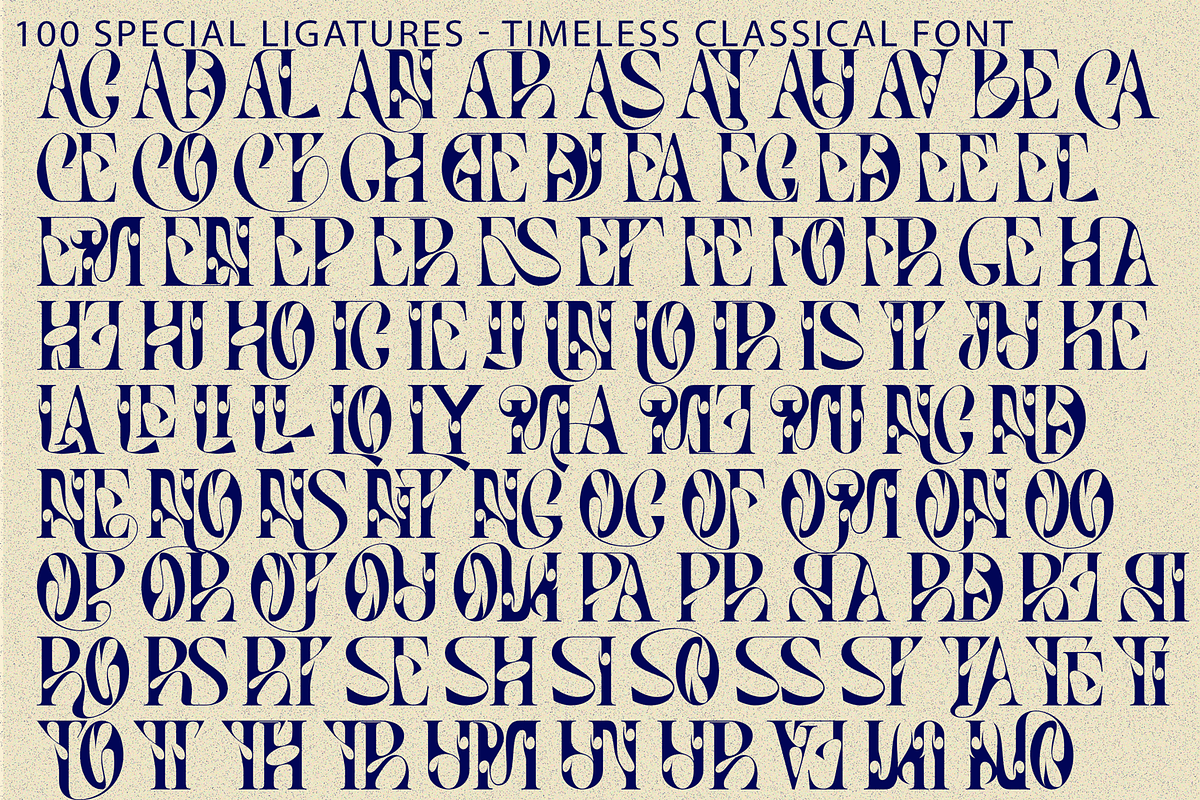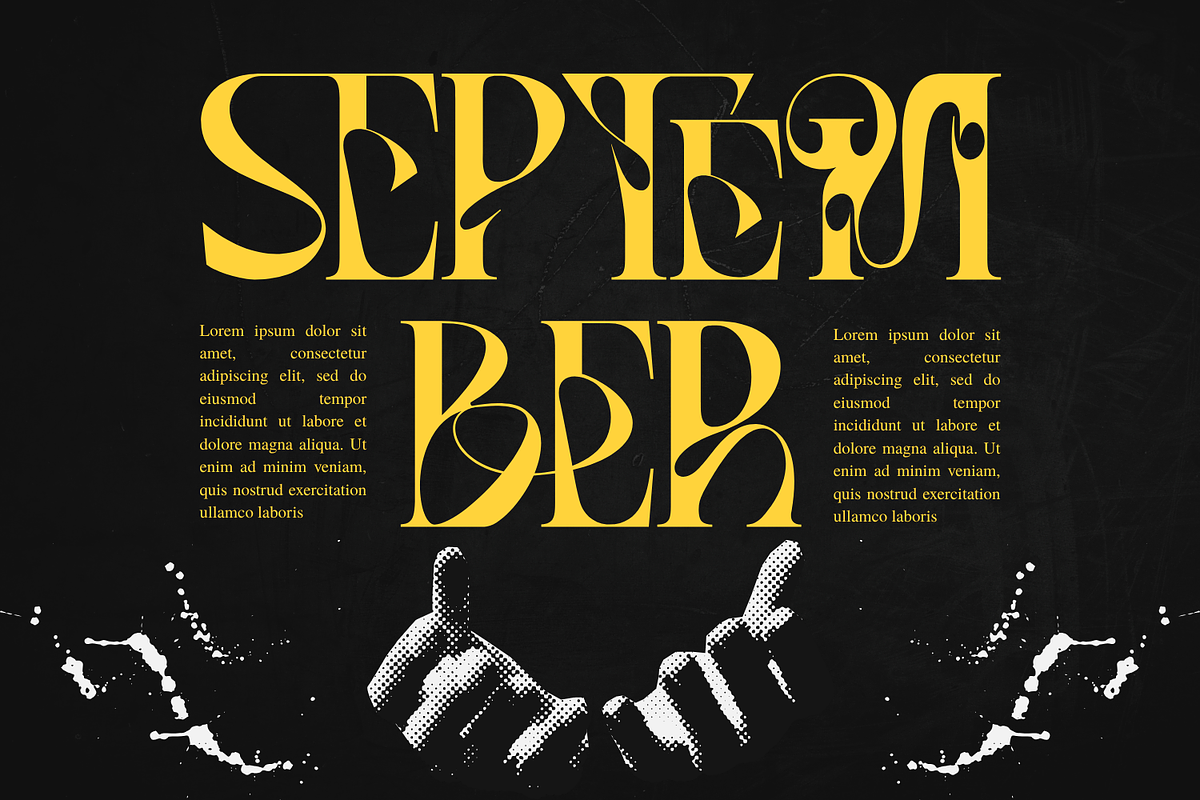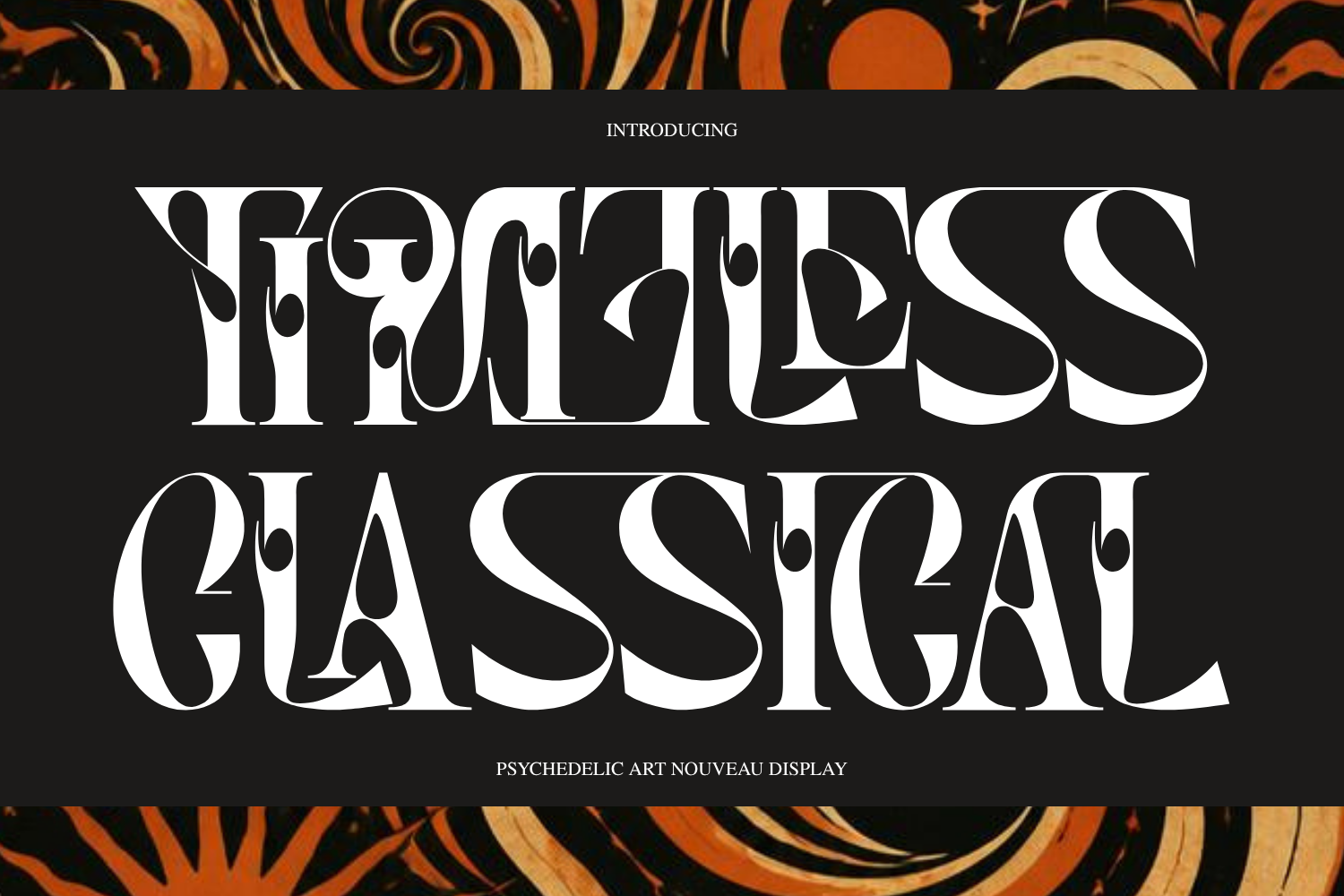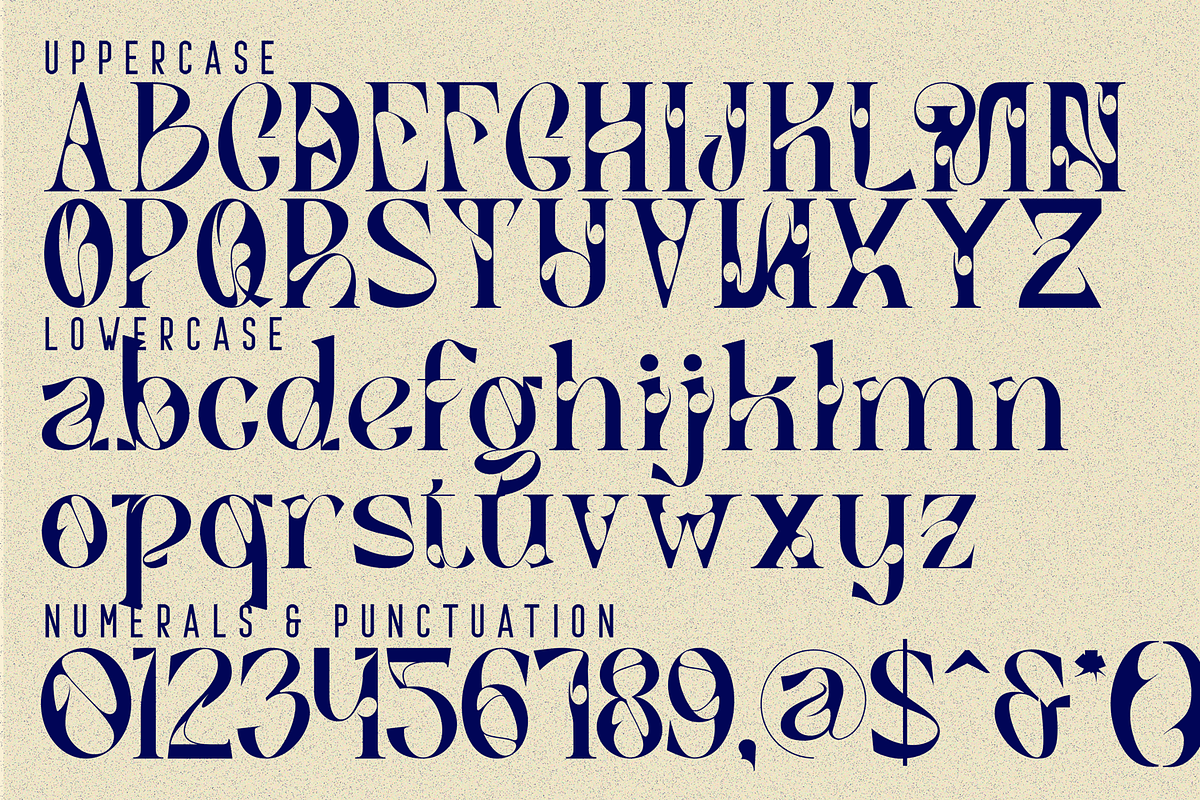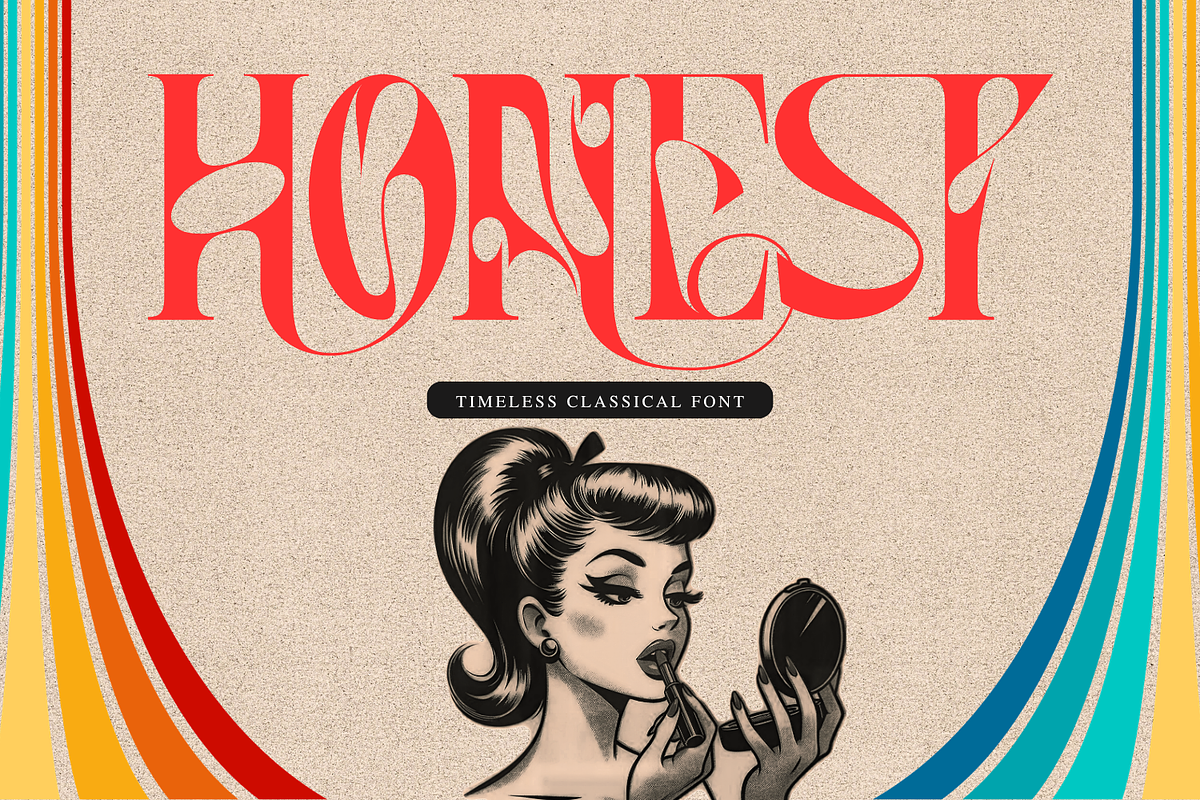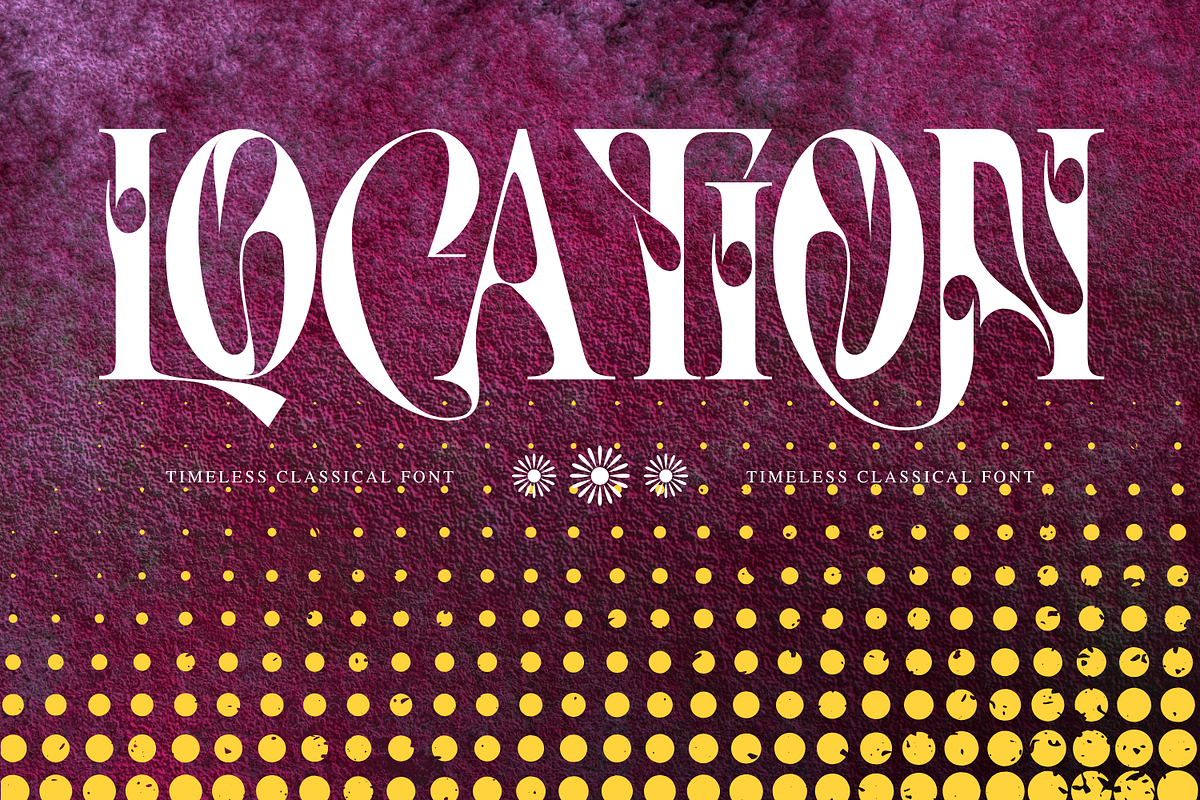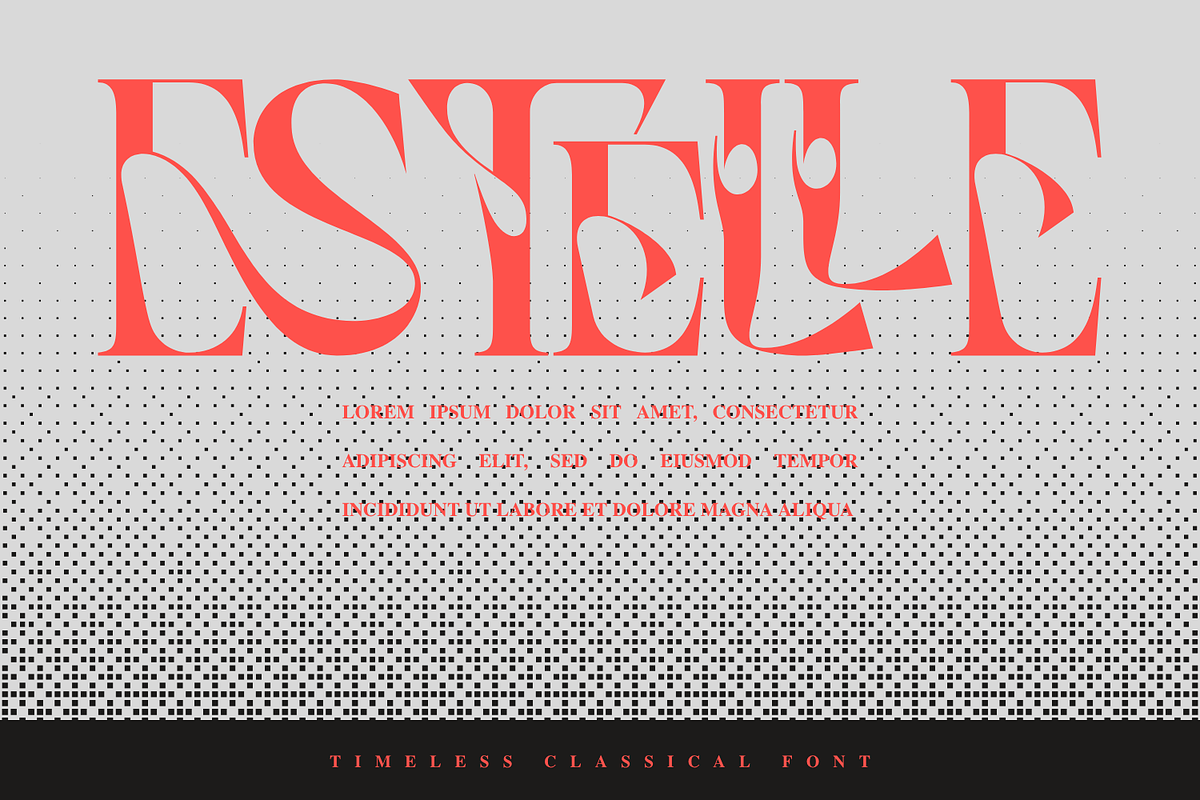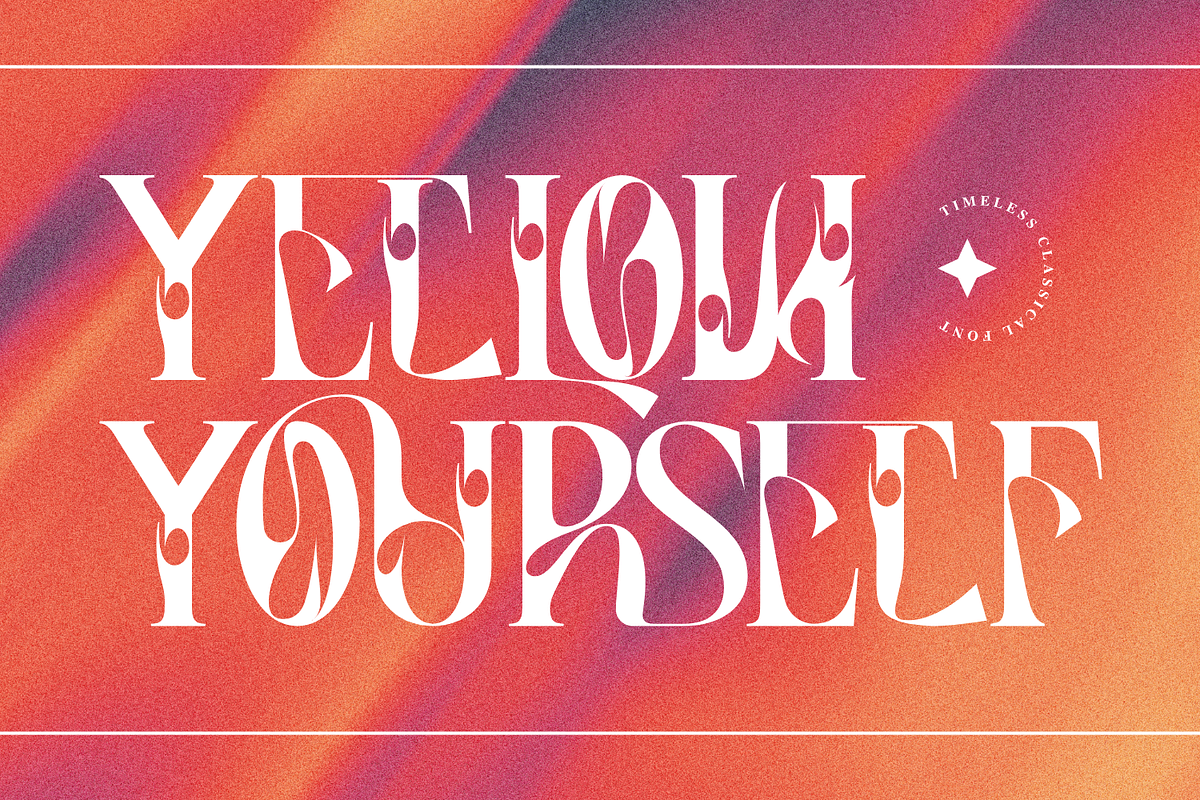
TIMELESS CLASSICAL FONT
TIMELESS CLASSICAL FONT – Avant-Garde High-Fashion Serif & Experimental Display Font is a spellbinding, avant-garde display serif typeface crafted at the intersection of haute couture editorial typography, organic liquid geometry, and high-end luxury design. Characterized by its extreme stem contrast, tall condensed proportions, and signature teardrop counter accents, this font seamlessly merges timeless classical elegance with bold, contemporary experimentation.
Engineered with fluid curved swashes and tight interlocking character rhythm, TIMELESS CLASSICAL effortlessly transforms standard display titles into bespoke, gallery-worthy logotypes. Its distinctive teardrop cutouts and sweeping organic forms give every word an unmistakable sense of movement and prestige. It is the ultimate typographic choice for luxury fashion branding, high-end editorial layouts, boutique perfume packaging, art gallery exhibition posters, and high-concept logos.
🔤Features:
Uppercase & Lowercase Letters
Around 100 Special Ligatures & Alternates
Accented Characters for multilingual support
🔤About 100 ligatures combined with Stylistic Alternates Font:
AC AD AL AN AR AS AT AU AV BE CA CE CH CO CT DE DI EA EC ED EE EL EM EN EP ER ES ET FE FO FR GE HA HE HI HO IE IC IL IN IO IR IS IT JU KE LA LE LI LL LO LY MA ME MI NC ND NE NG NO NT NS OC OF OM ON OO OP OR OT OU OW PA PR RA RD RE RI RO RS RT SE SH SI SO SS ST TA TE TH TI TO TR TT UM UN UR VE WI WO